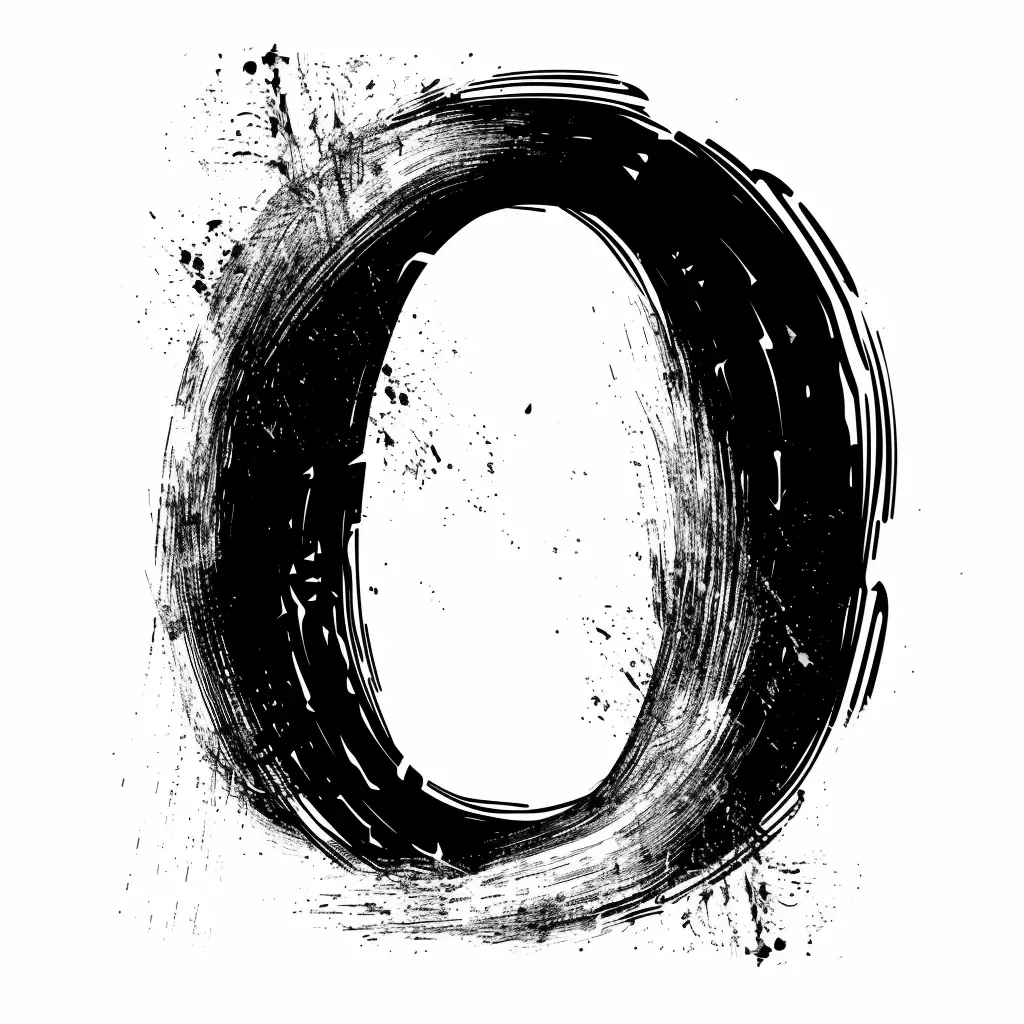
This image features a bold, black circular shape resembling the letter "O," rendered in a rough, brushstroke style with visible texture and splatters. The monochromatic design uses stark black against a white background, emphasizing the dynamic, hand-painted aesthetic with uneven edges and scattered ink spots.